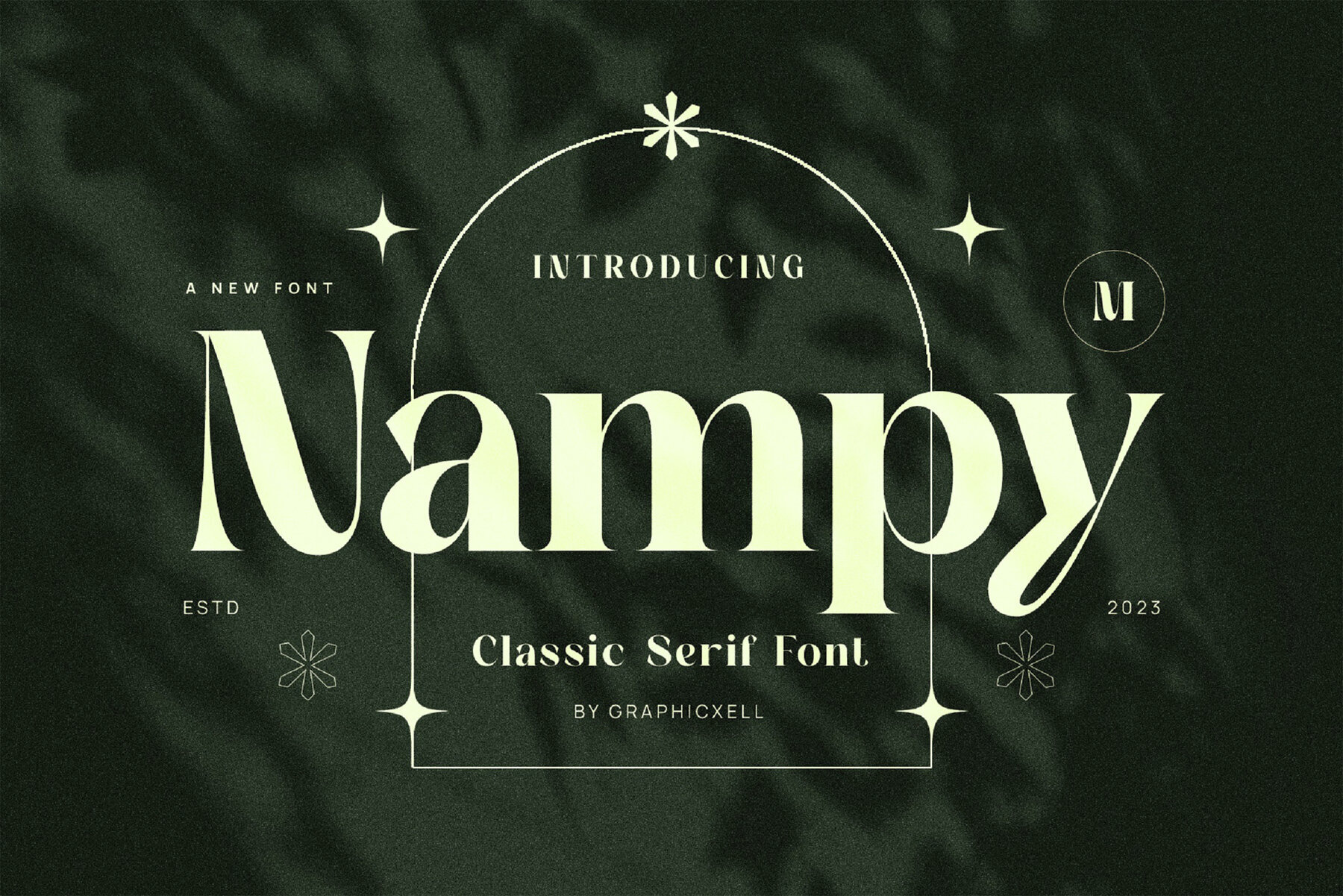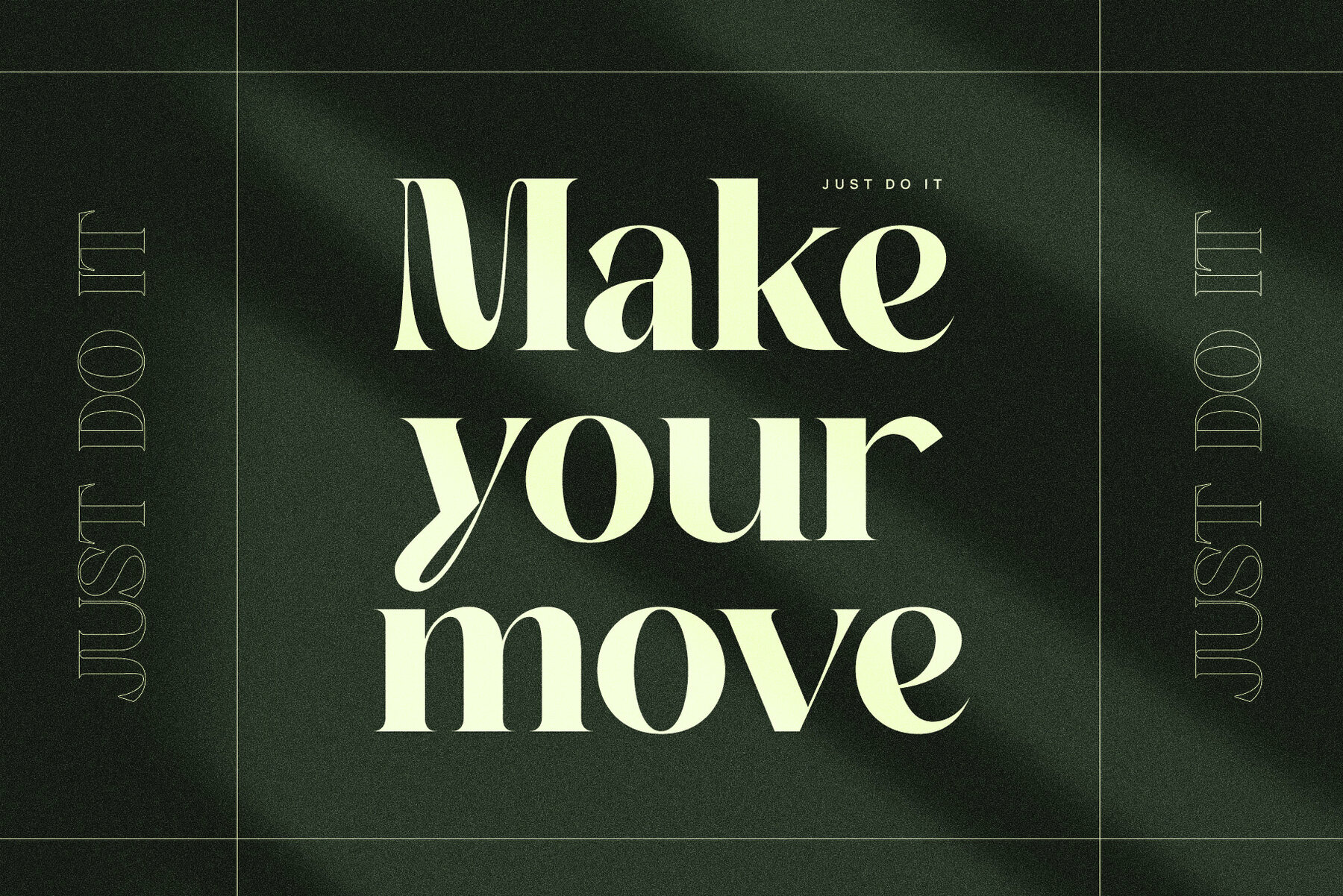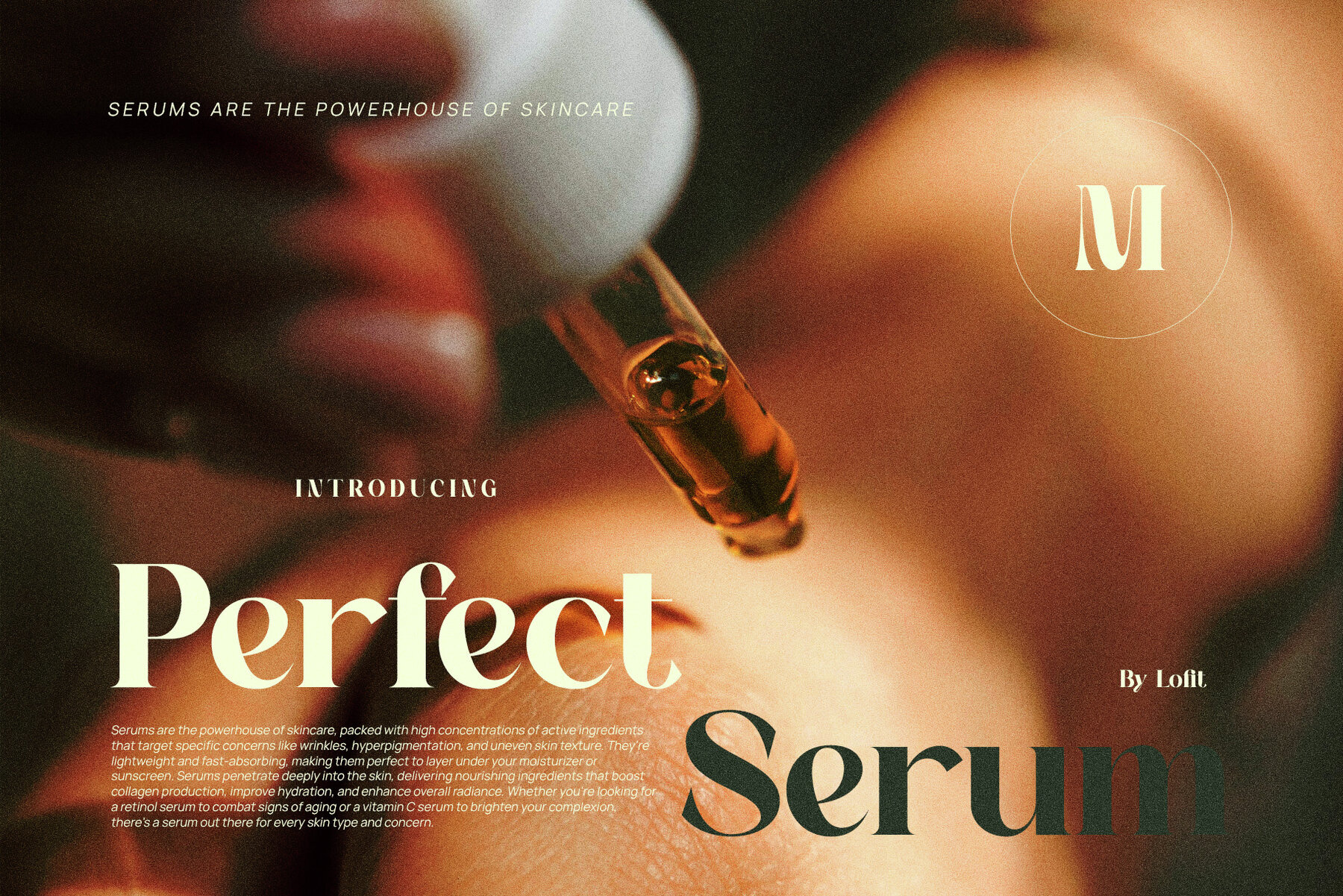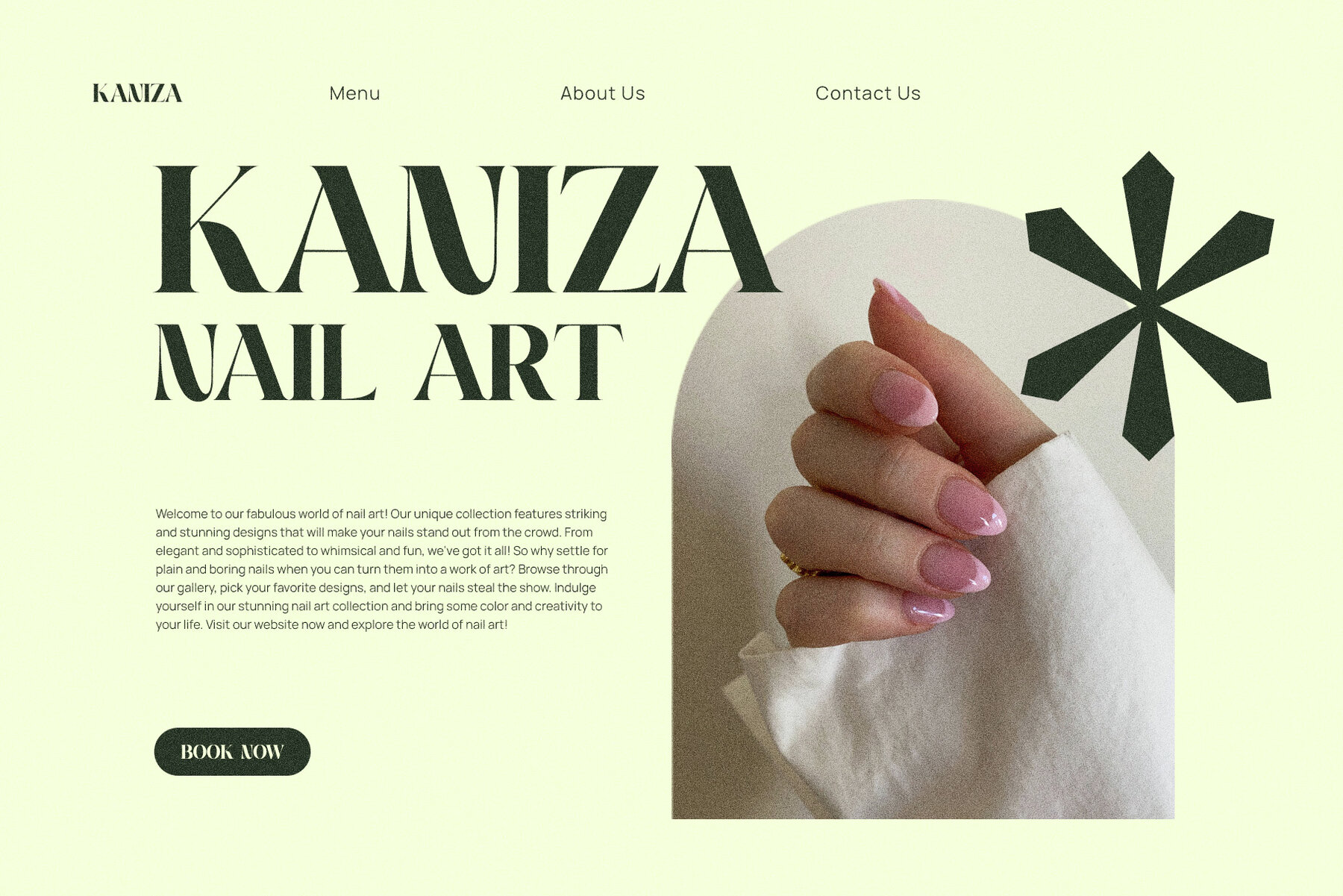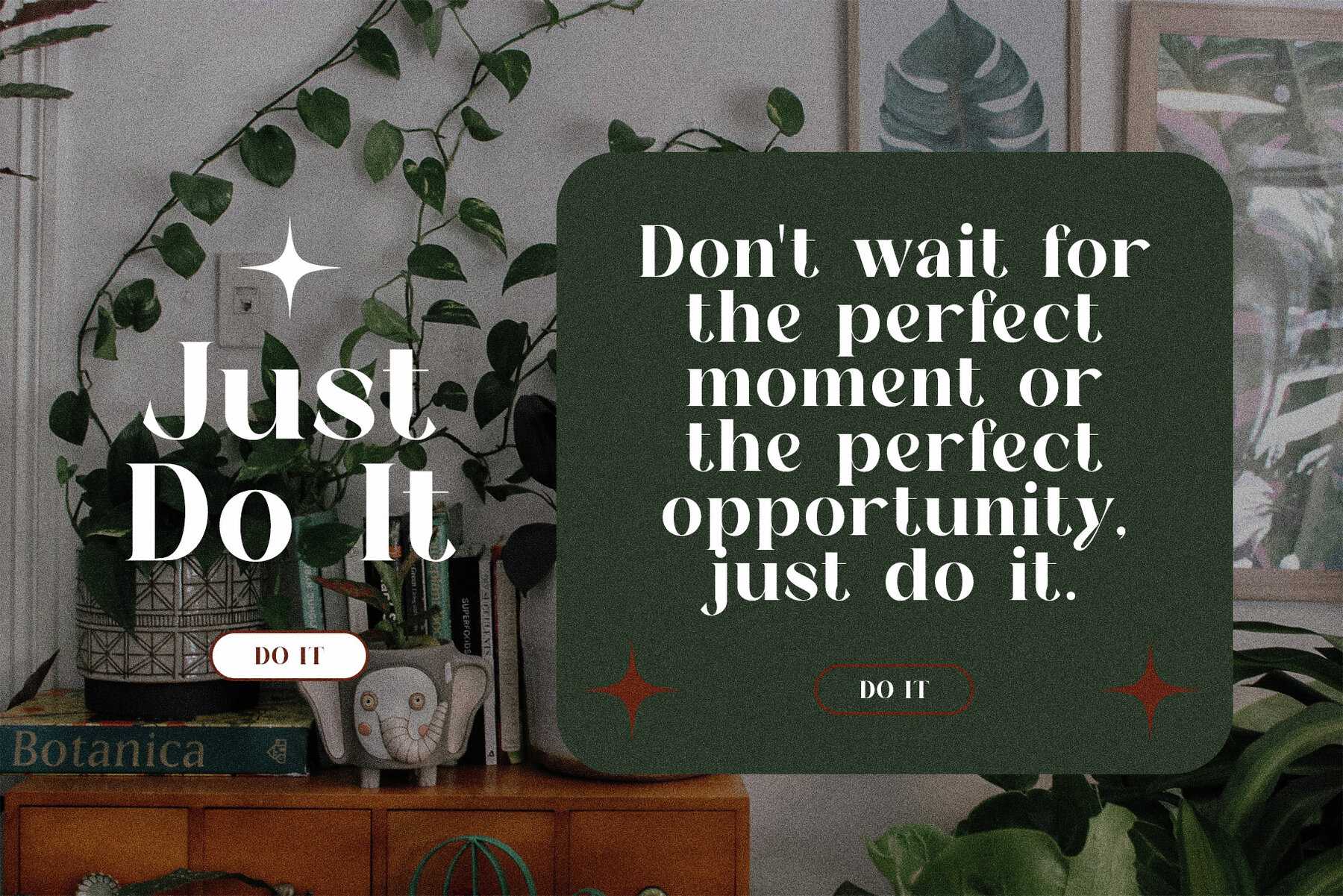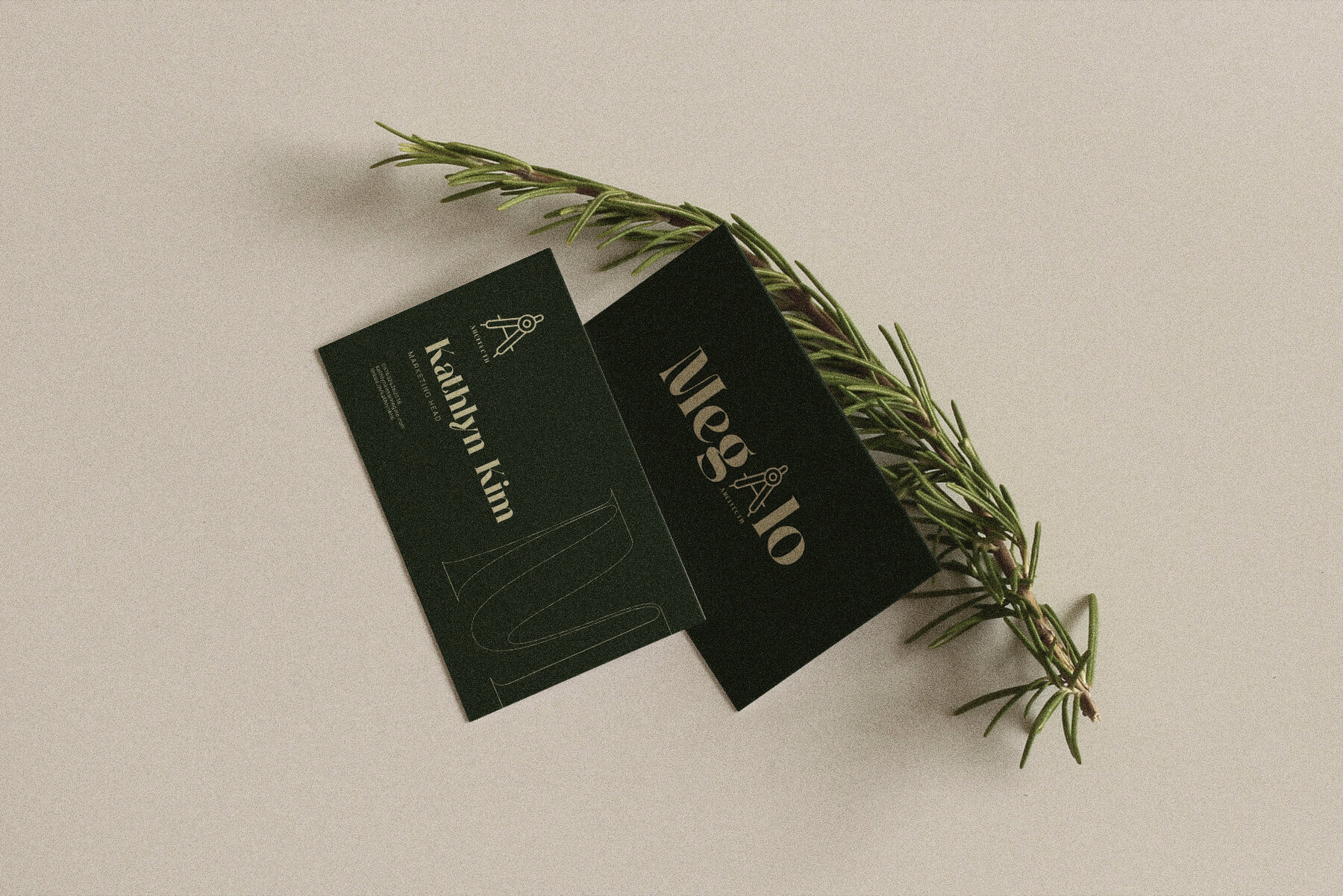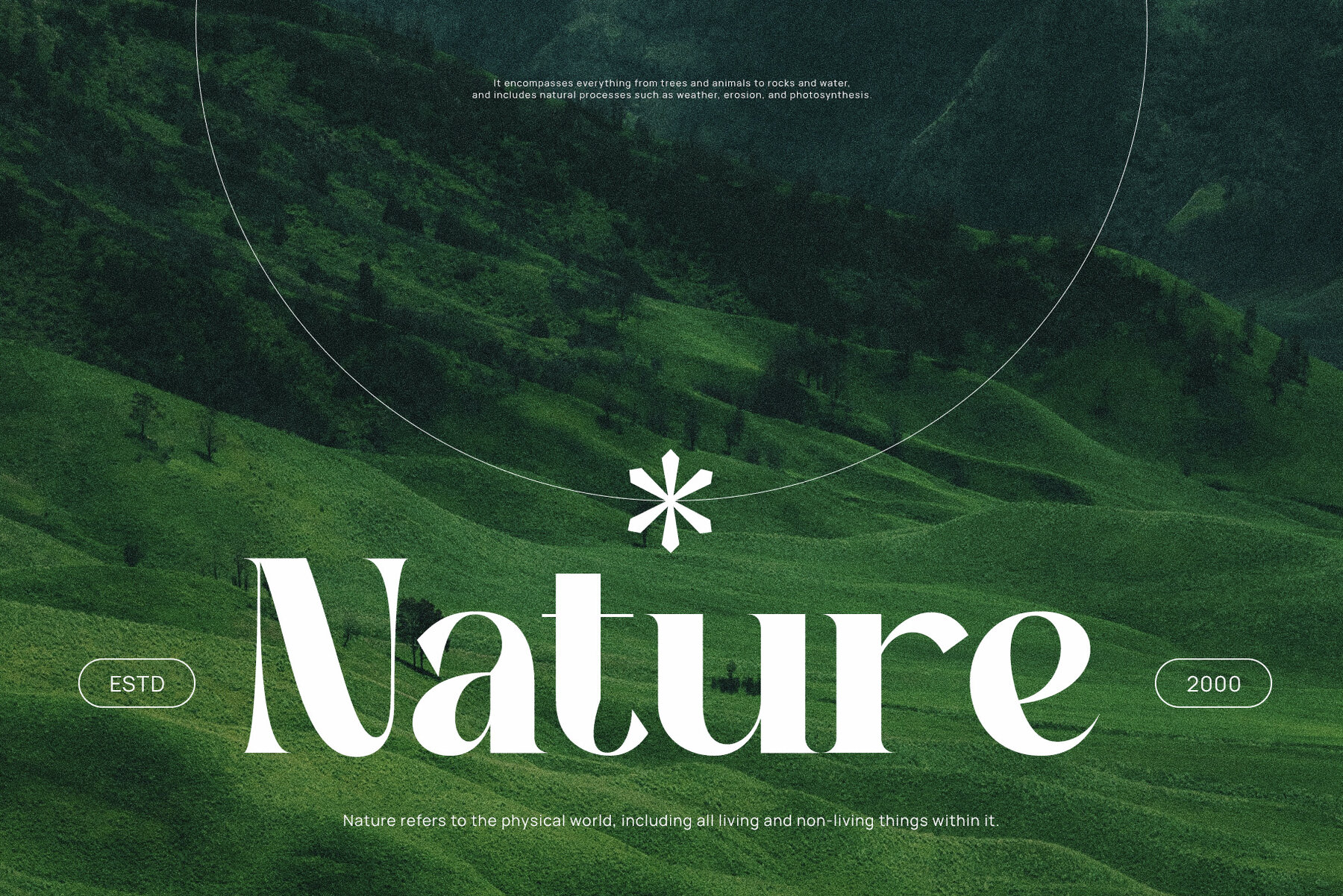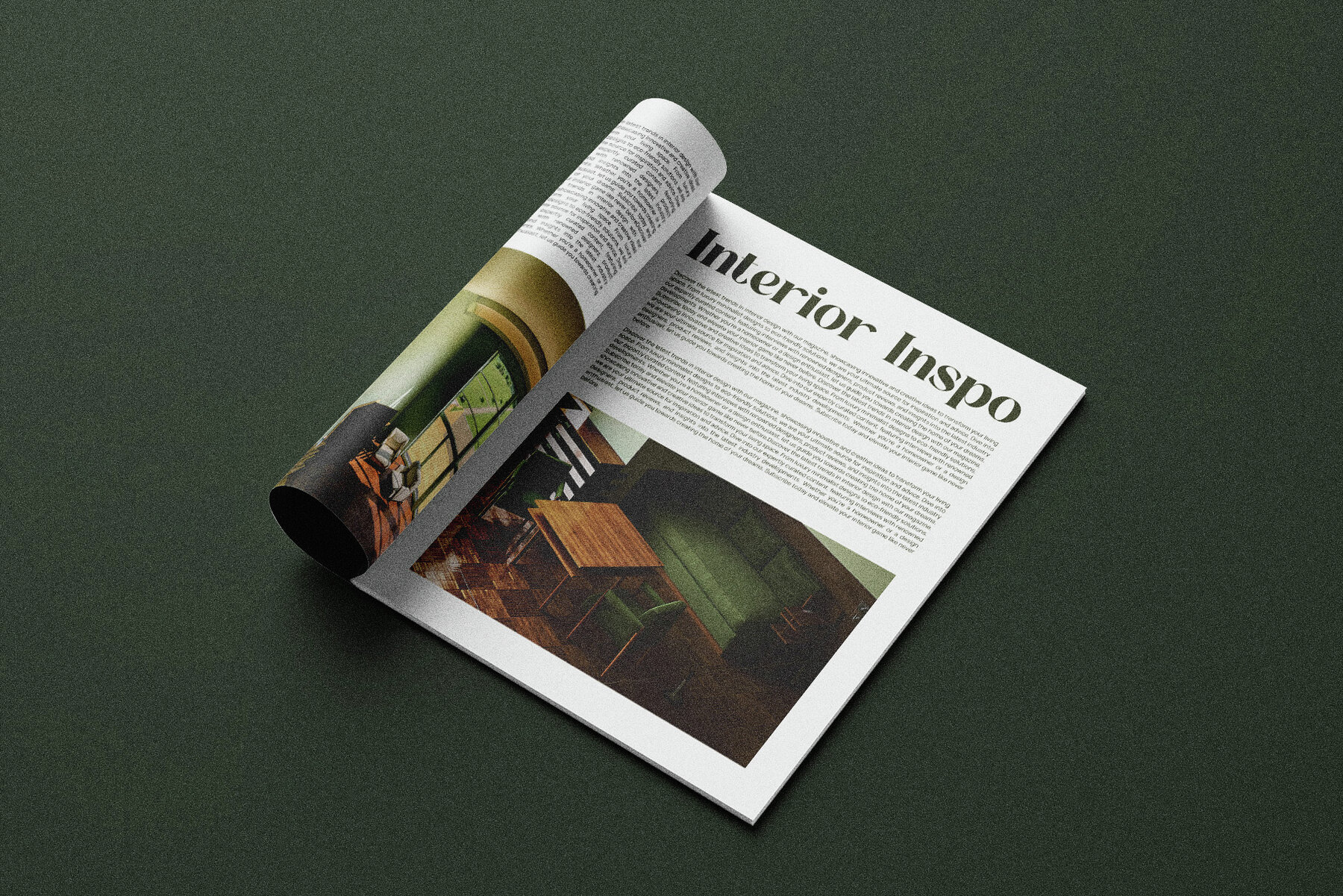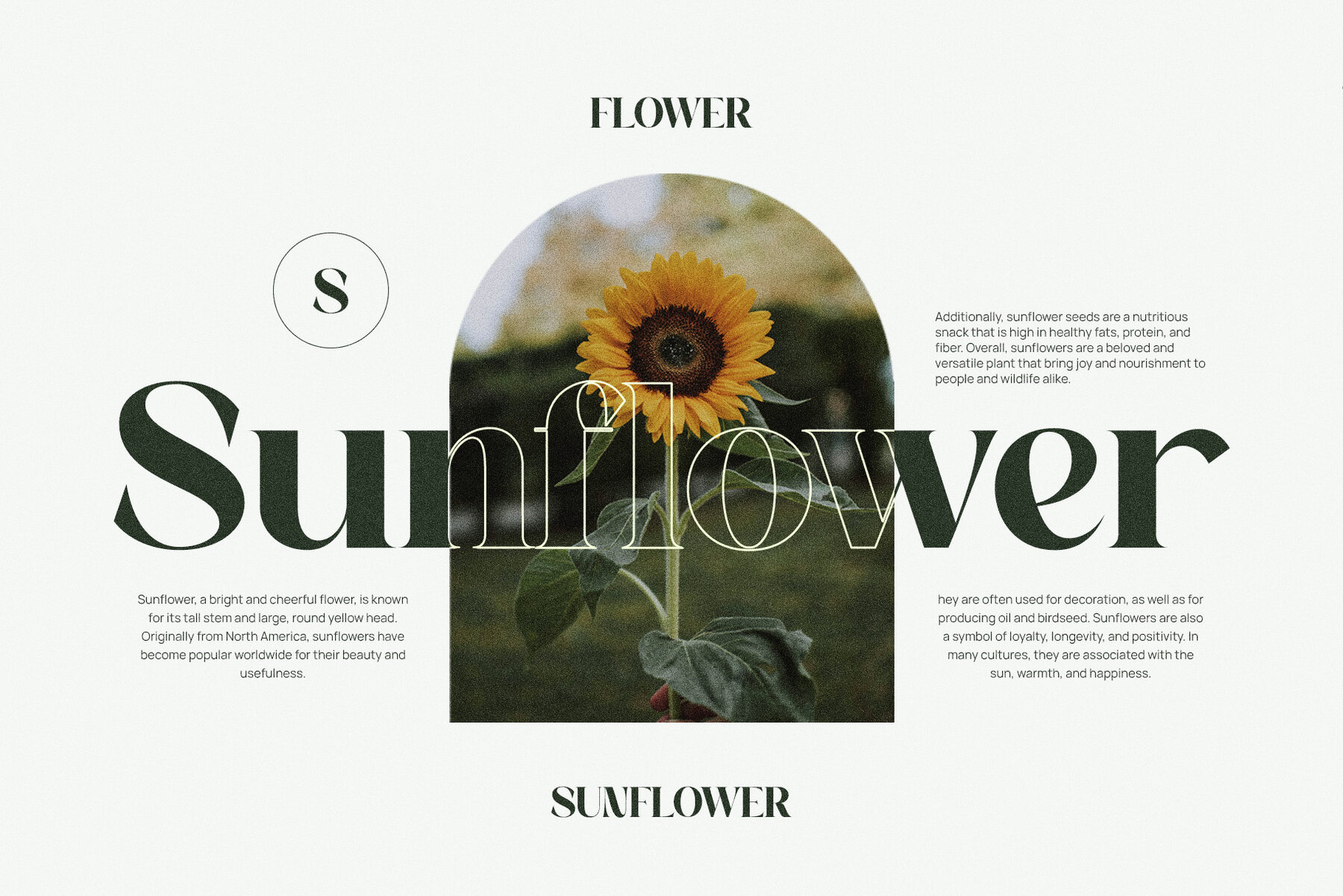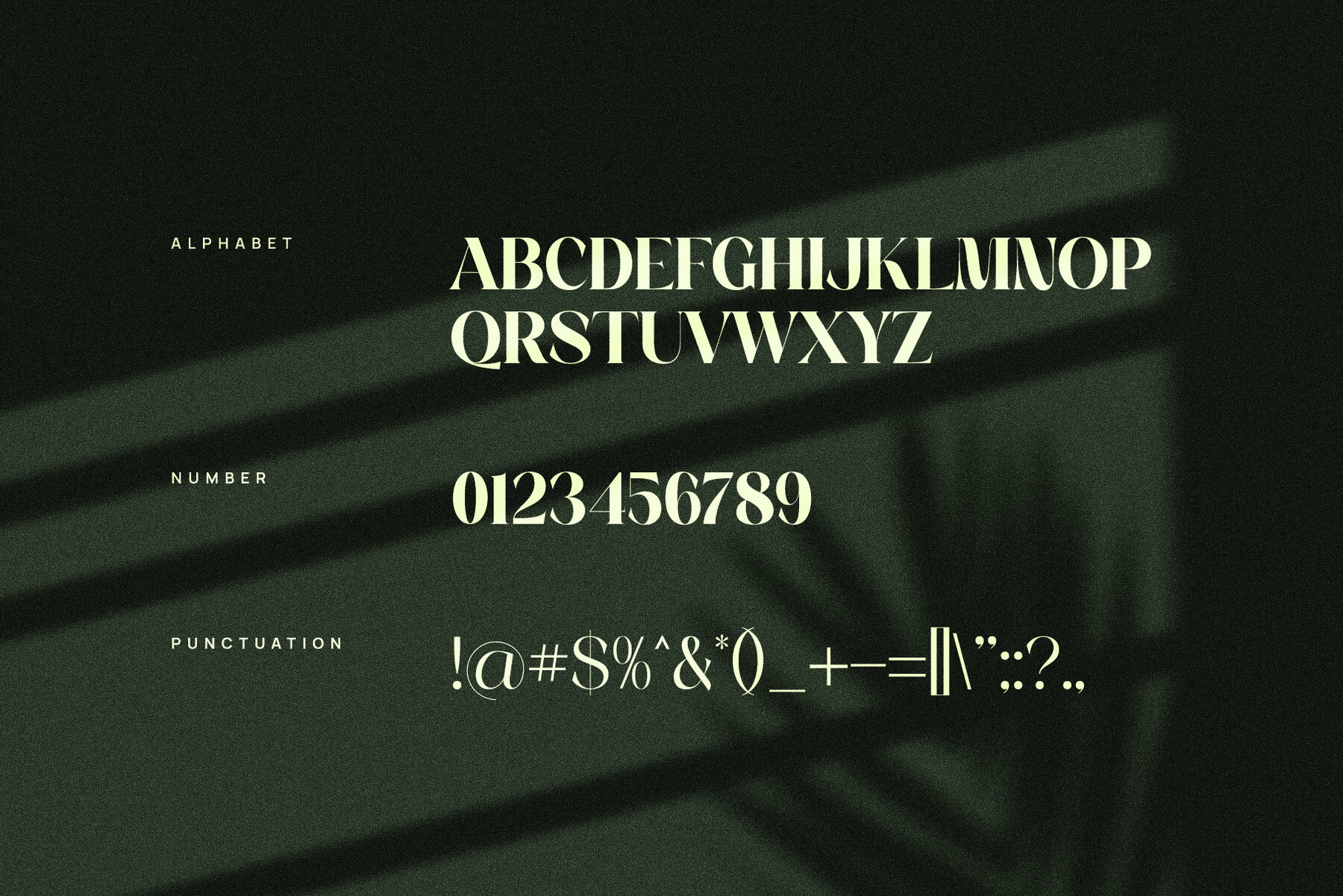
Nampy Font
Nampy Regular
Nampy is a unique and elegant serif font designed for branding and logo projects. Its sophisticated and modern style ensures that it meets high readability standards, making it perfect for various creative applications. Nampy is highly recommended for use in Adobe Illustrator or Adobe Photoshop. Should you have any questions, feel free to reach out for assistance. Enjoy crafting with the Nampy font!Nampy: An Elegant Serif for Refined Branding
Versatile Design Applications